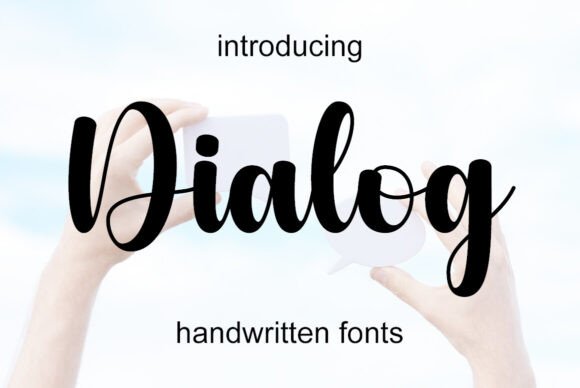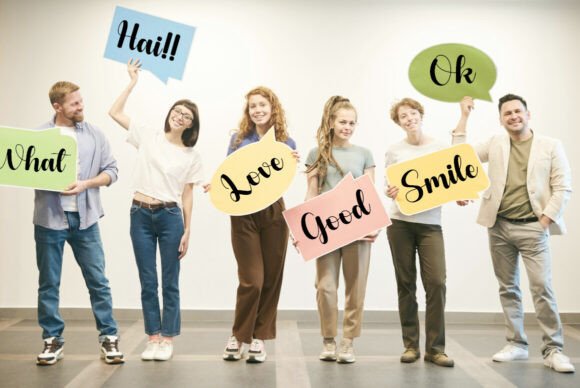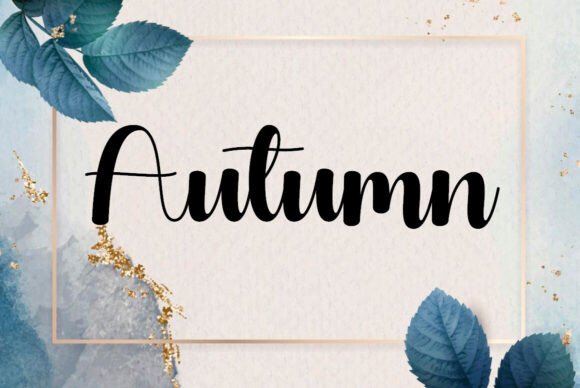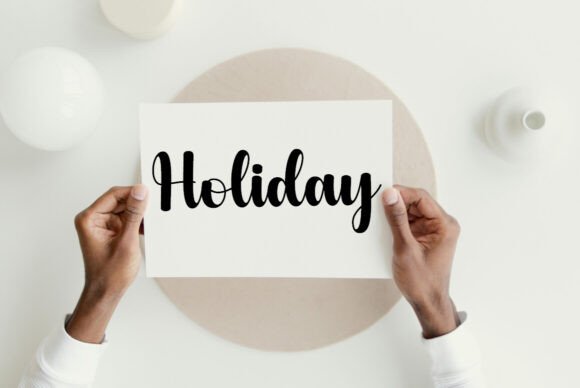
Dialog Font: Sweet Cursive Script for Wedding & Logo Design
About the Dialog Font
Introducing the Dialog Font, a beautifully crafted typeface designed to elevate your creative projects. Dialog is a sweet and cursive handwritten font. This gentle font will look gorgeous on a variety of design ideas. It will add a joyful and romantic touch to each of your projects! Perfectly fit for branding, logo, wedding things, greeting cards, fashion, lookbook, marketing promotion, and any time you want your design to look fancy and elegant but still casual.
Dialog’s cursive style excels in headlines, short text blocks on invitations or packaging, and as a signature element in logos. Its gentle nature makes it ideal for brands focused on femininity, romance, or artisanal products. Avoid using Dialog for body text or lengthy paragraphs; its delicate forms lack the legibility required for extended reading.
Pair Dialog with a clean sans-serif like Montserrat for a modern contrast, or a classic serif like Garamond for a more traditional feel. A geometric sans-serif such as Futura could also add visual structure and sophistication, balancing Dialog’s flowing forms.
The overall personality of Dialog is undeniably romantic and friendly, yet sophisticated. It projects a sense of warmth and approachability while maintaining an air of elegance.